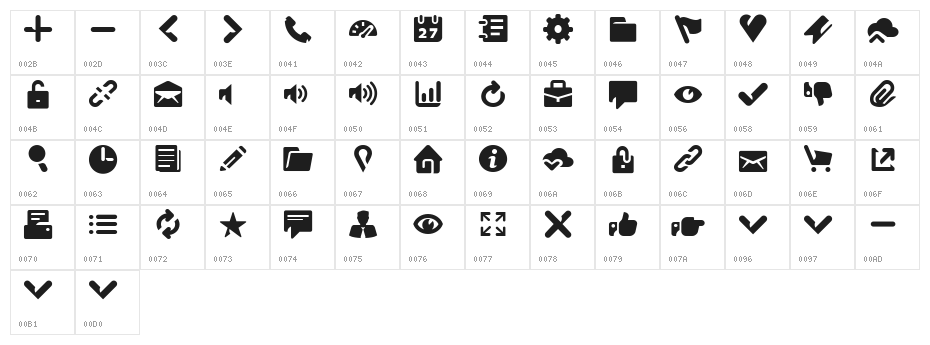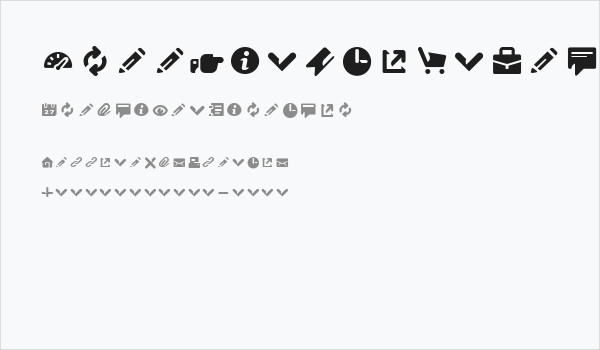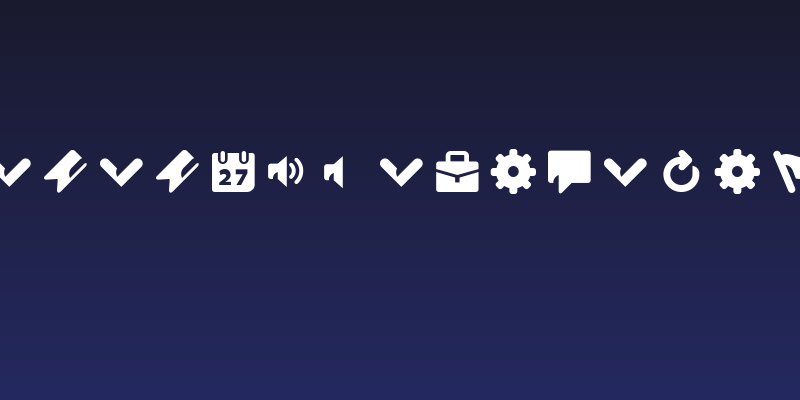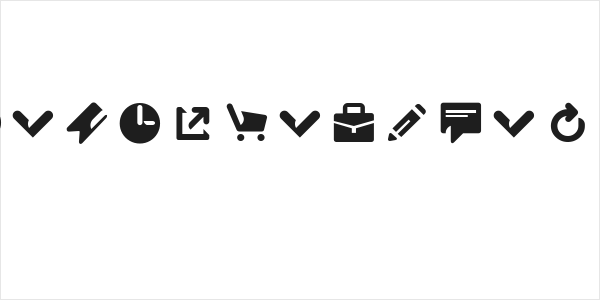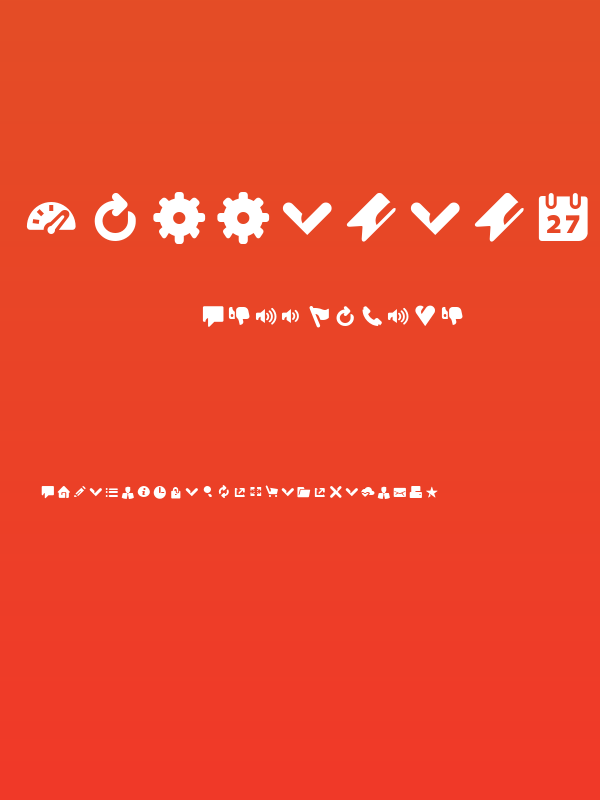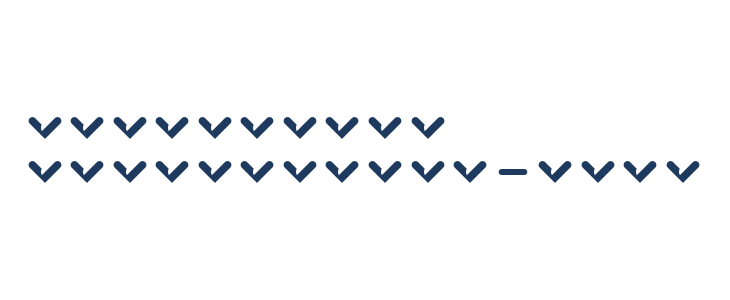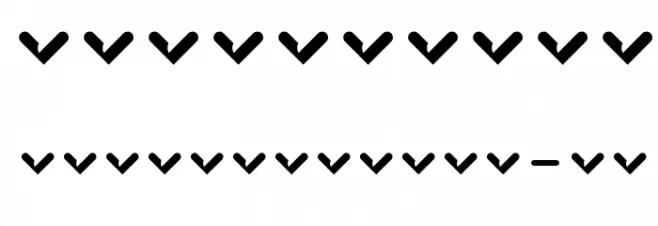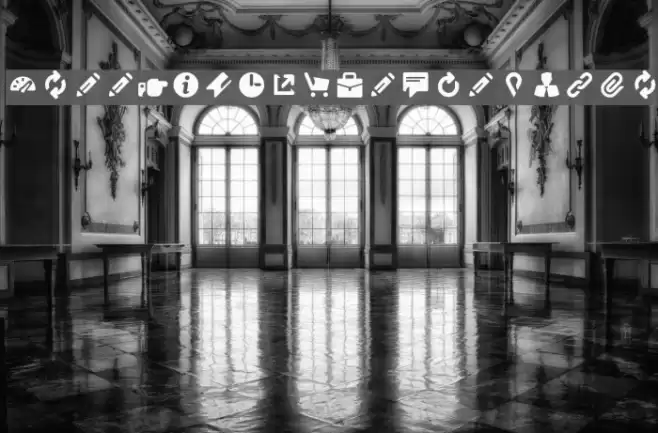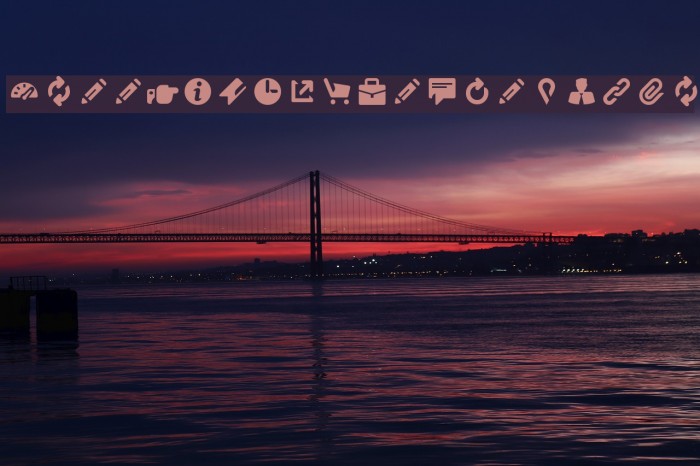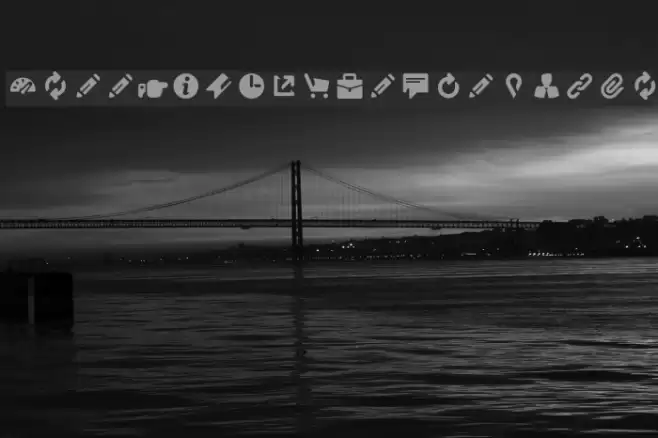
Breezi Icon Set Regular Font
Breezi Icon Set Regular Description
A bold, geometric icon set with solid fills and minimal detailing, featuring a wide range of common interface symbols such as communication, navigation, and action icons. The icons are highly legible, with consistent stroke weight and a modern, utilitarian appearance.
| Overall Style | Modern, Minimalist, Functional |
| Use Case | Icons, UI elements, Buttons, Navigation |
| Proposed Projects | User interfaces, mobile apps, dashboards, websites, infographics, and software toolbars. |